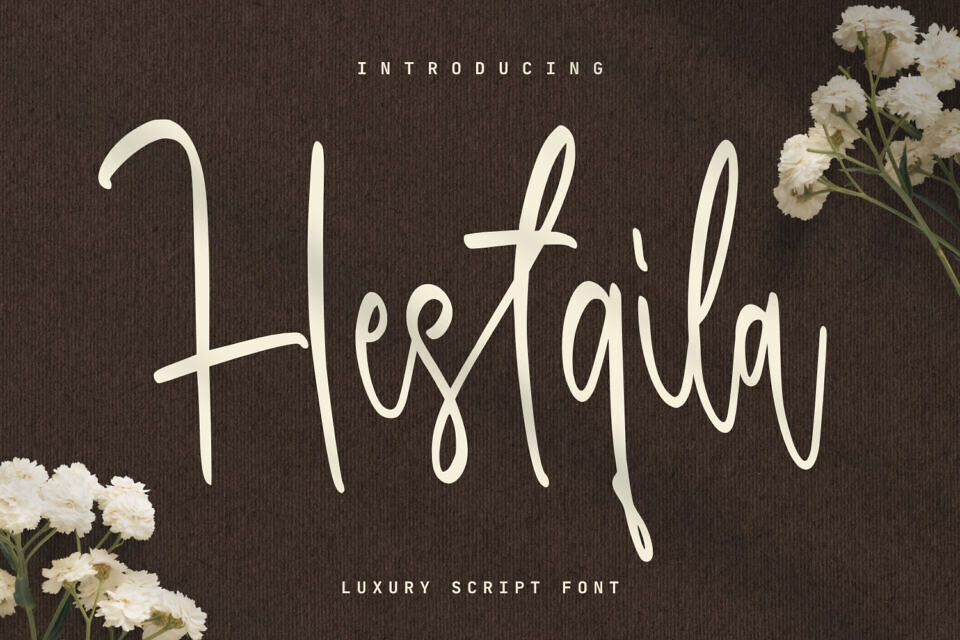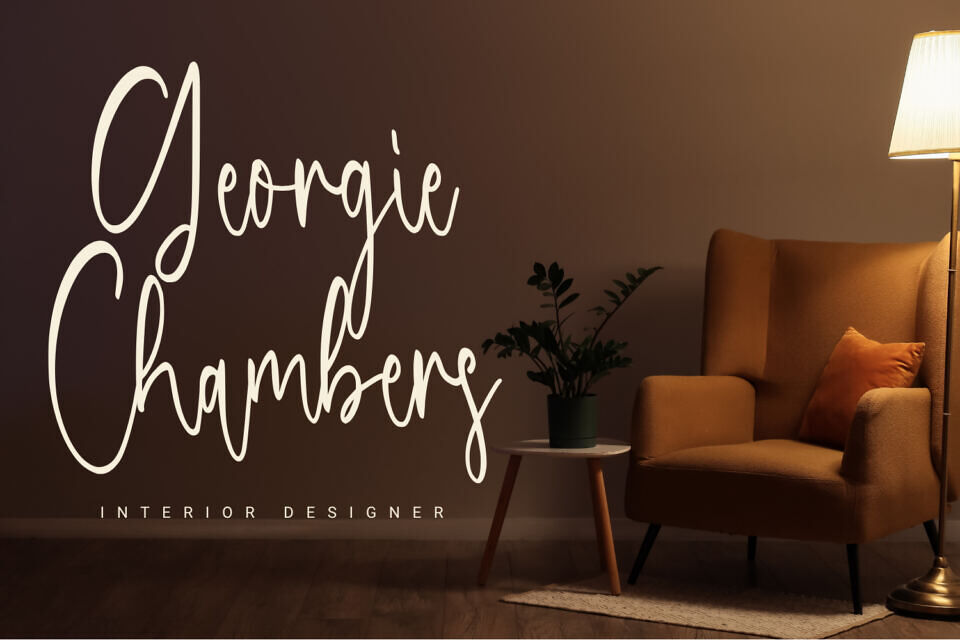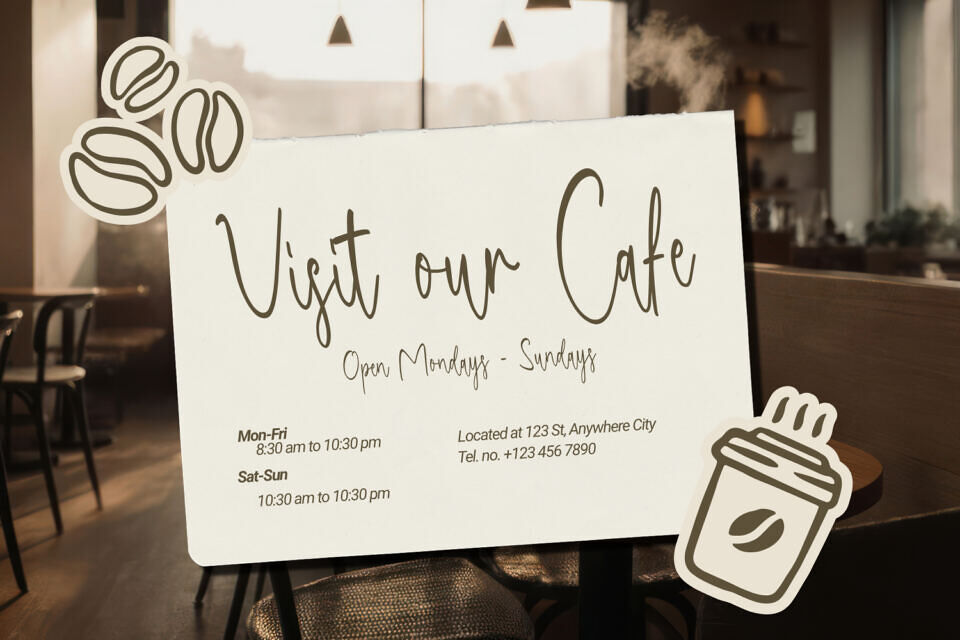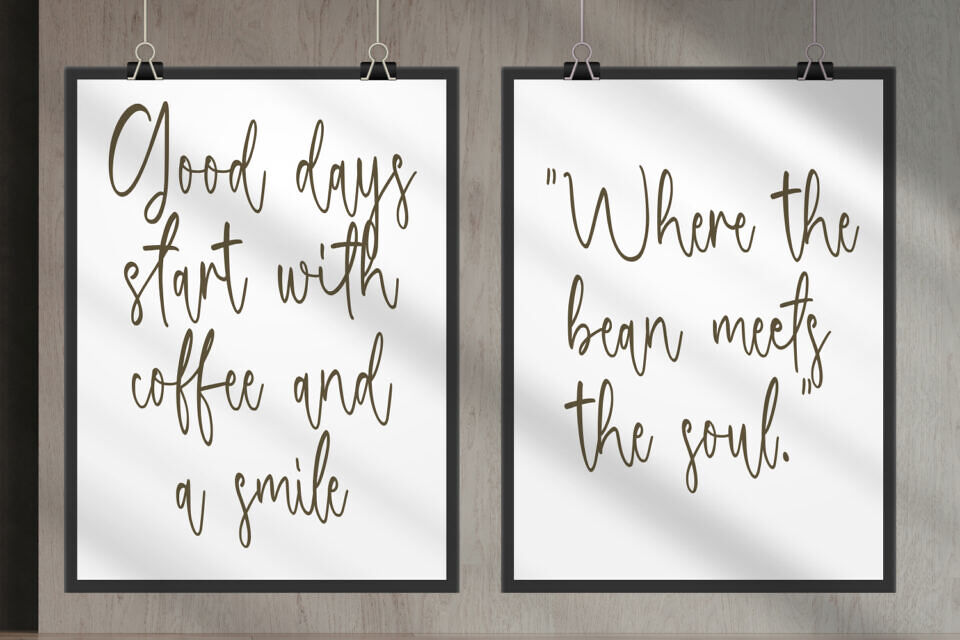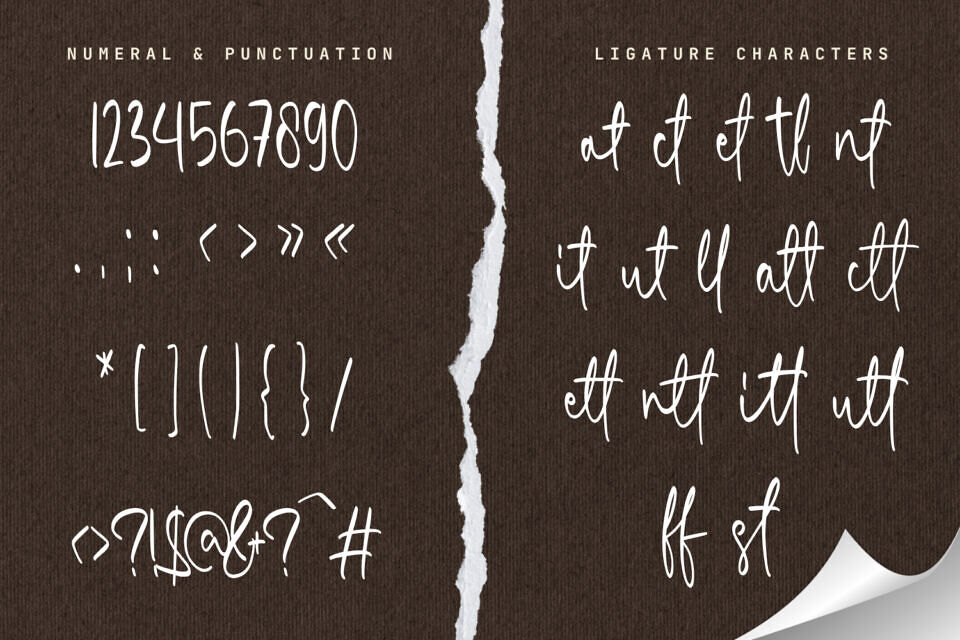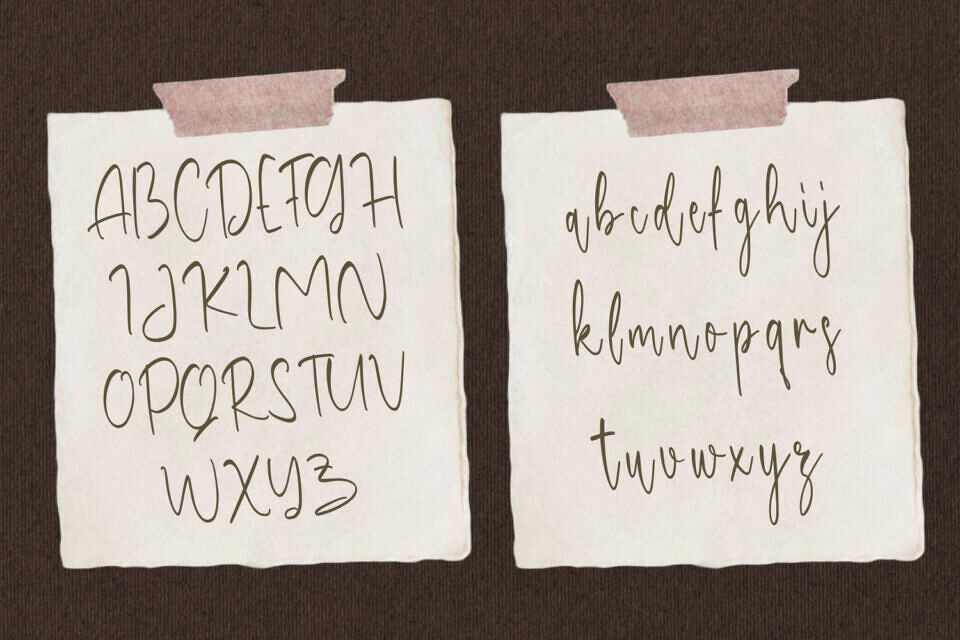
Hestqila is a sophisticated script that embodies the essence of elegant typography. This luxury script is meticulously crafted to serve as a high-end handwritten font for diverse professional projects. Inspired by modern calligraphy, its fluid, organic strokes provide a premium aesthetic that stands out as a unique creative typeface.
Whether you are designing for high-end branding or editorial layouts, this professional script offers versatility and grace. It functions perfectly as an elegant lettering solution for those who appreciate refined details.